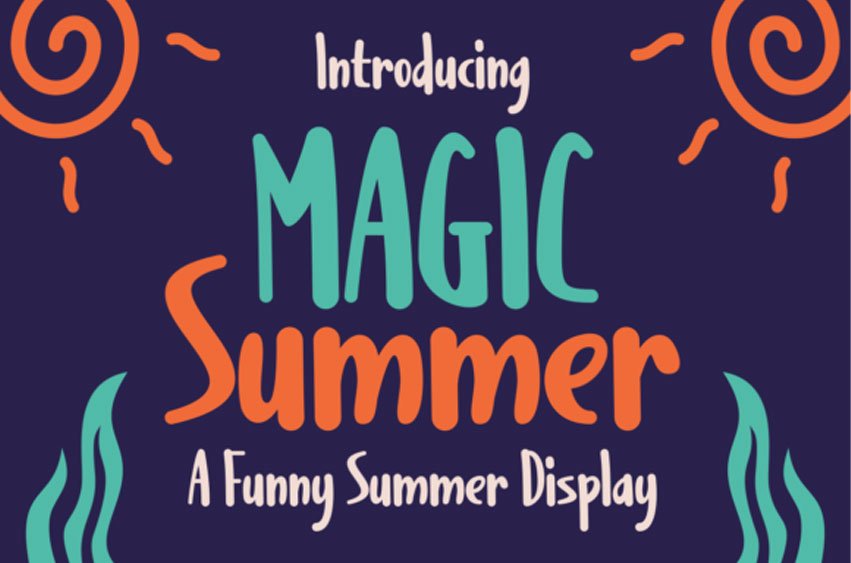
Magic Summer Font s a delightful and whimsical handwritten font that brings the joy and playfulness of summertime to any design.
With its charming irregularities and flowing strokes, it evokes a carefree and artistic spirit. Perfect for invitations, greeting cards, and social media graphics, Magic Summer adds a touch of magic and sunshine to your creative projects.